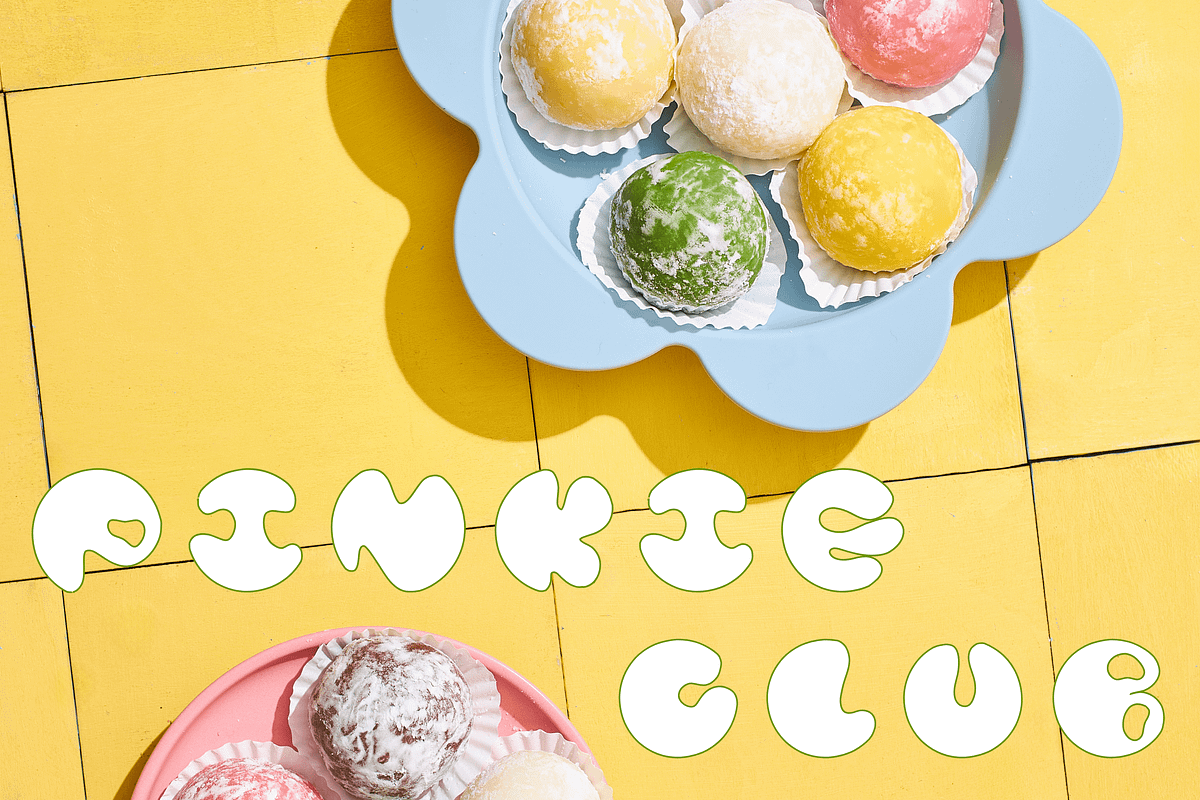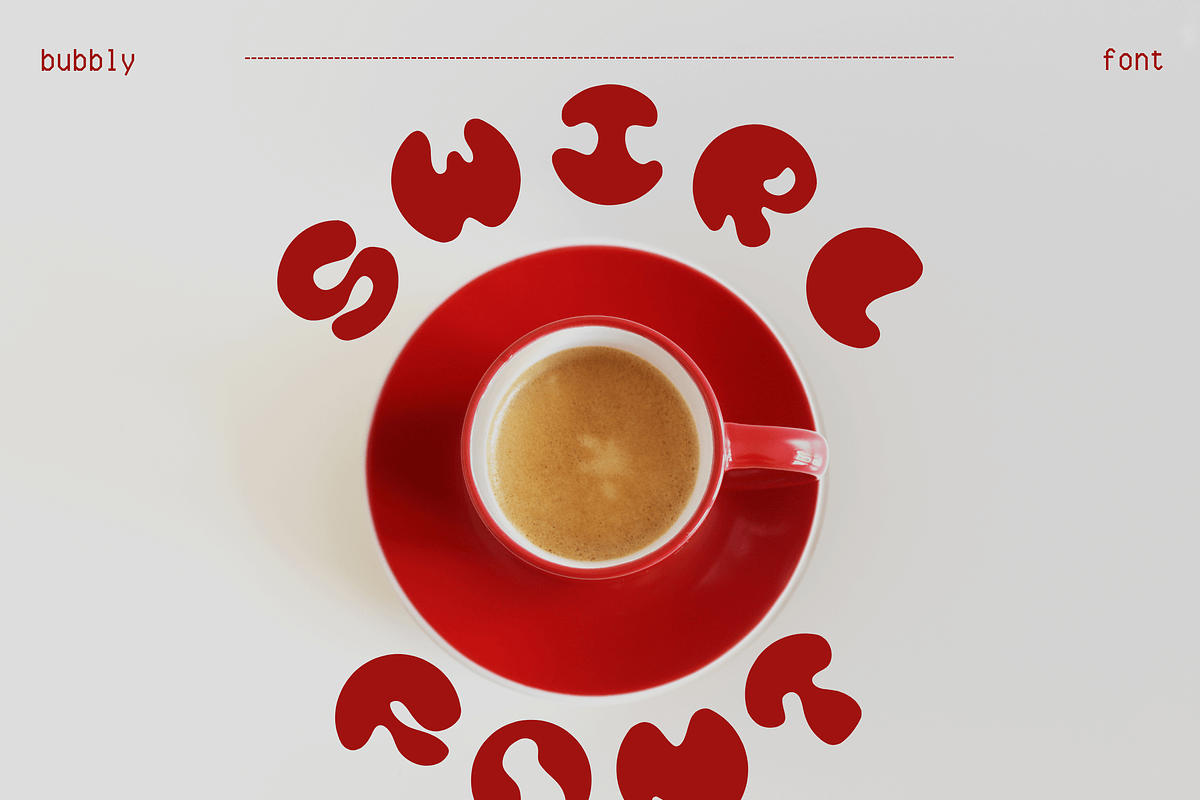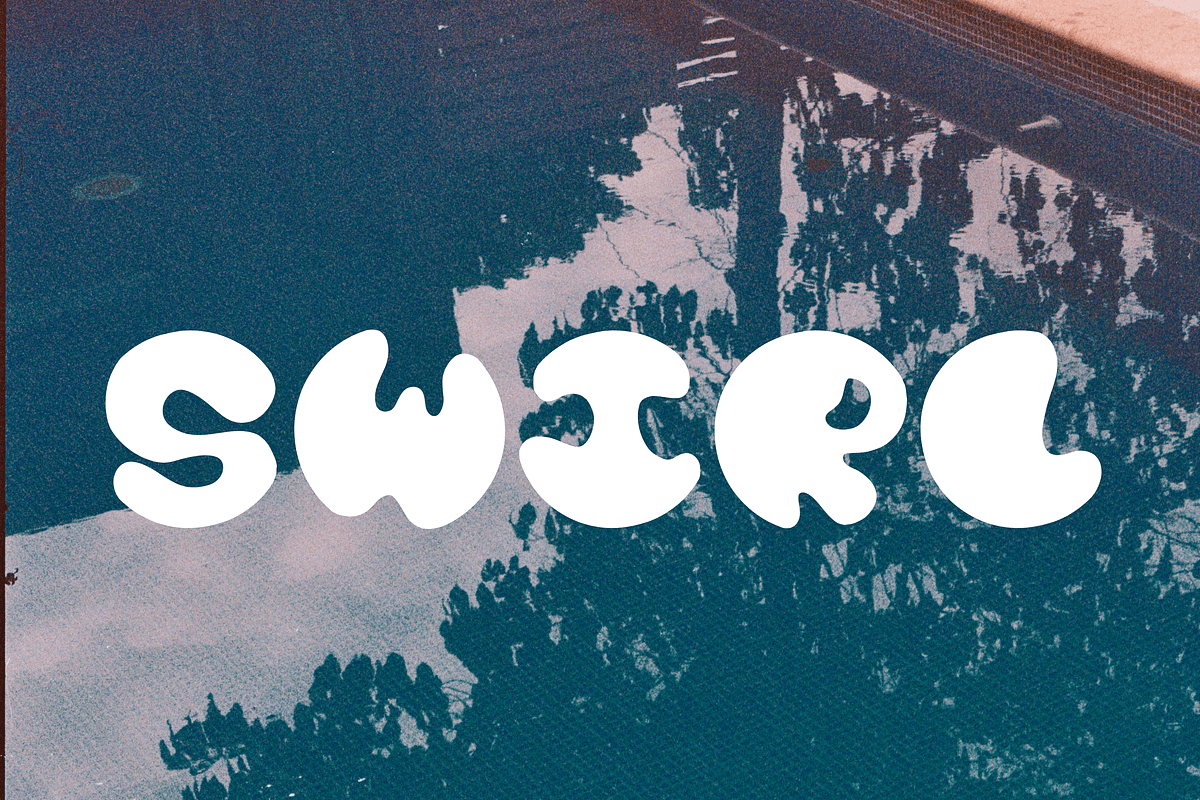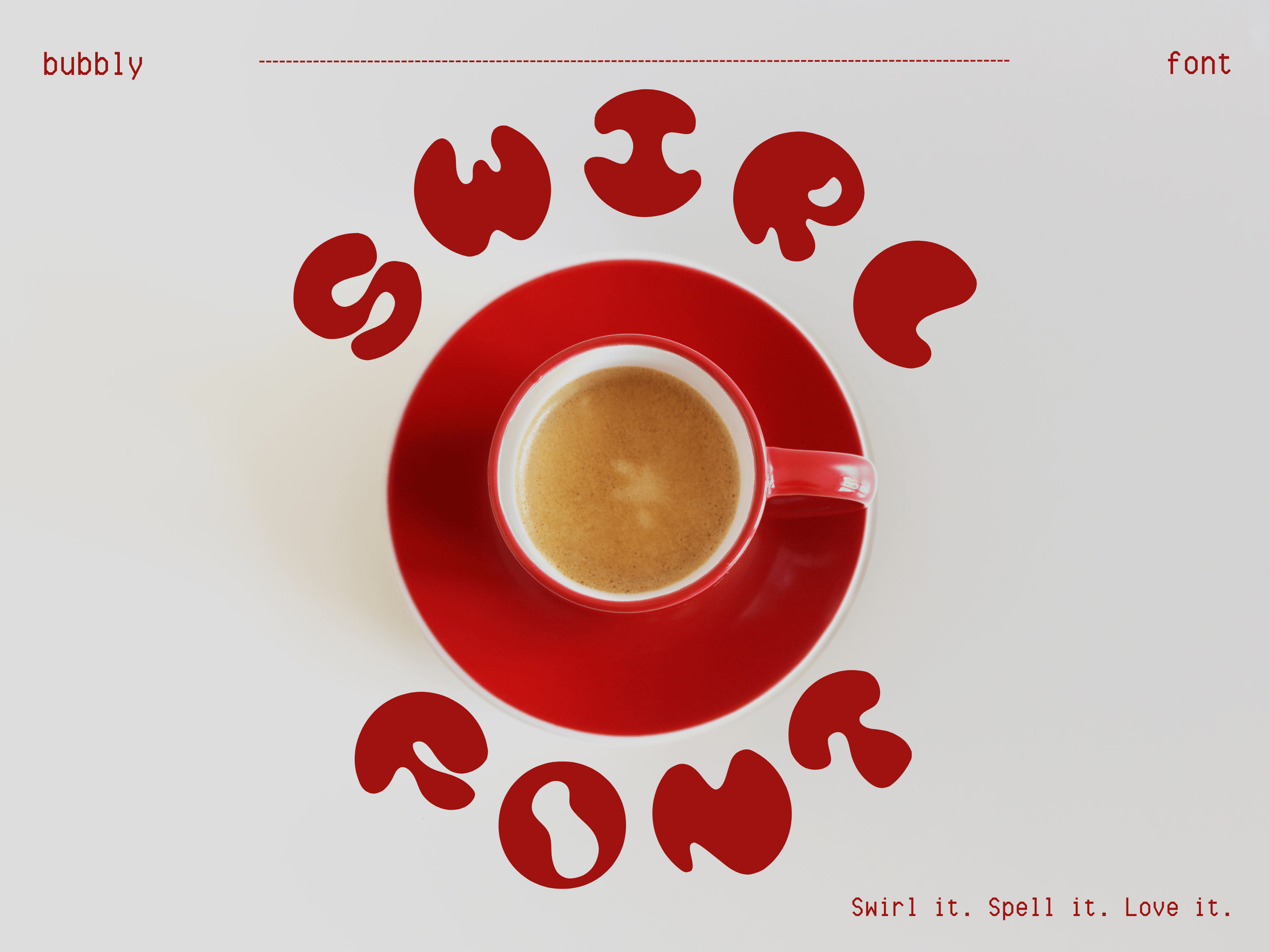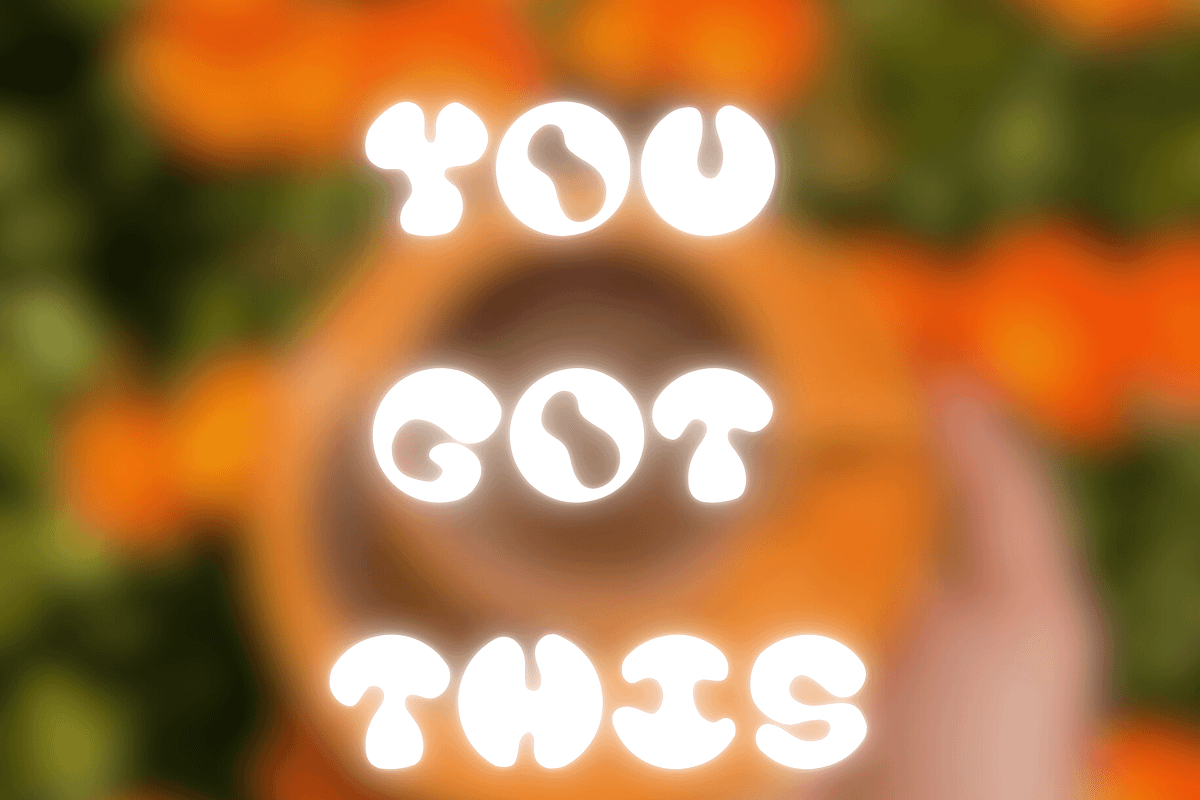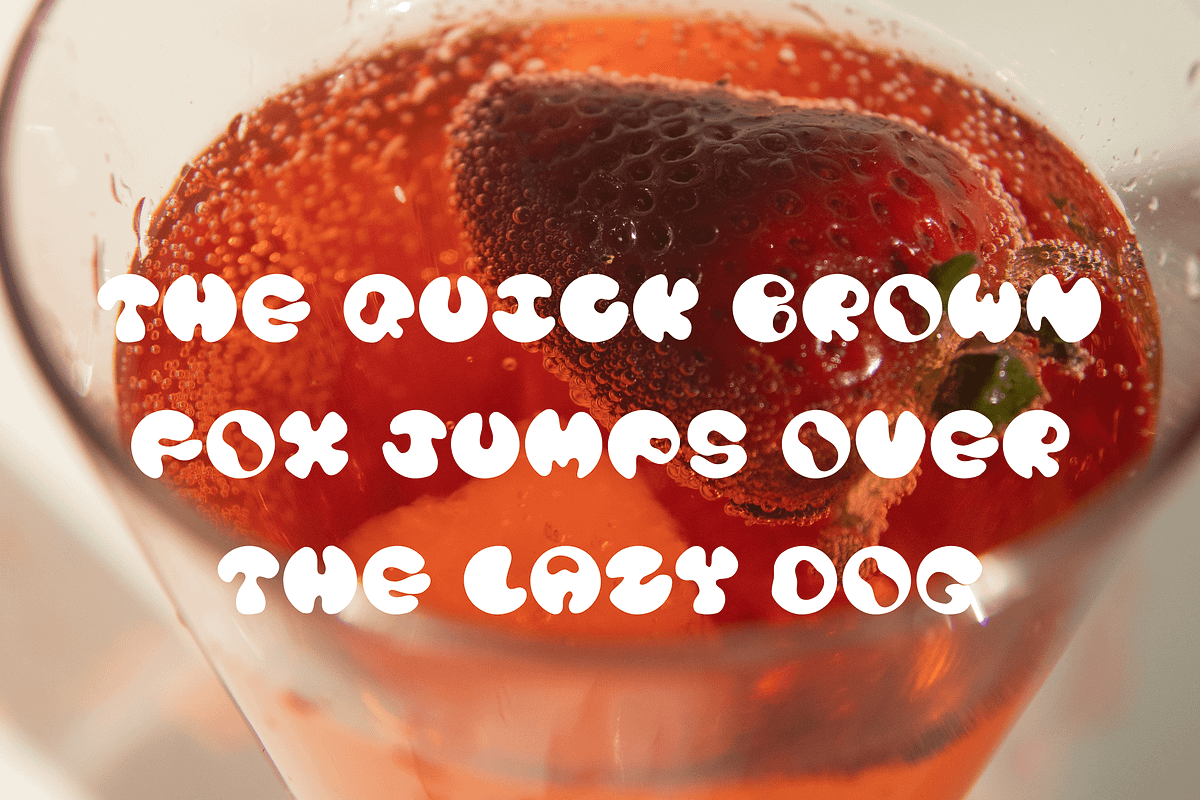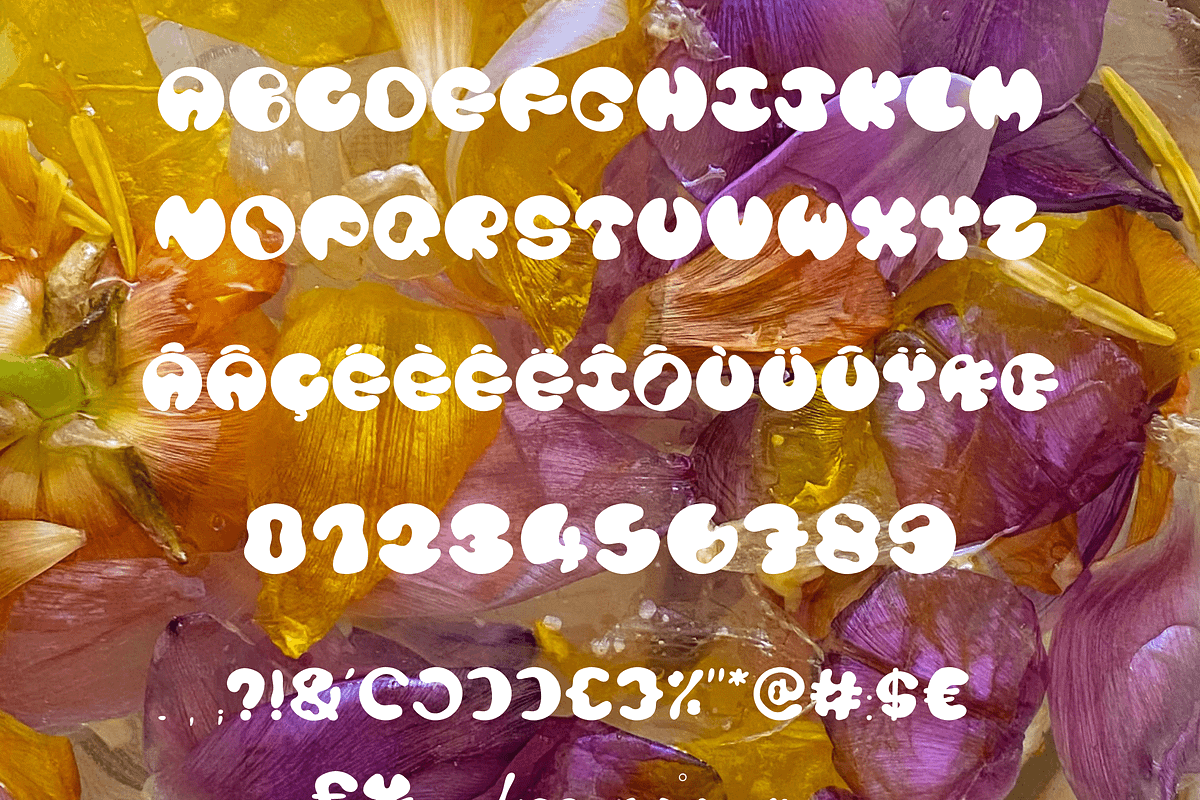
Swirl - Bubbly & fantasy font
Swirl is a round, soft, and funky typeface inspired by marbles and swirling curves.
Perfect for adding a playful, bubbly, and original touch to your titles, logos, or visual creations. It blends retro charm with a soft modern twist, while staying highly readable and full of personality.
Includes 26 letters, accented characters, numbers, symbols & punctuation (112 glyphs).